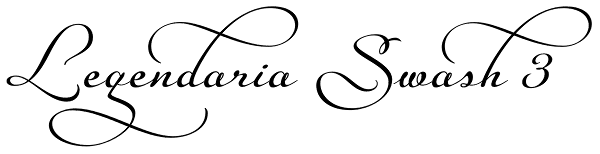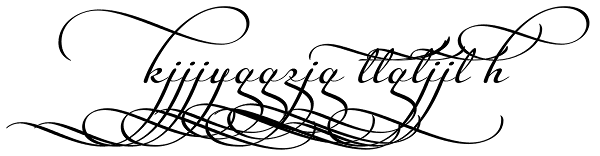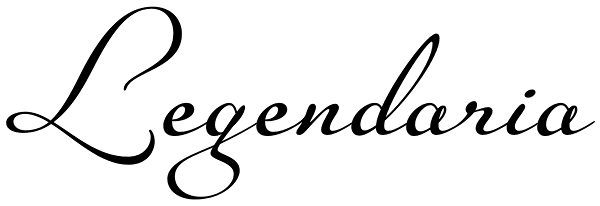
Legendaria
Legendaria is a very sophisticated and elegant connected script font. Its more than 1300 ornamented characters make it incredibly versatile. Most lower case letters have at least 15 different options, including tails and flourishes. For Open Type...